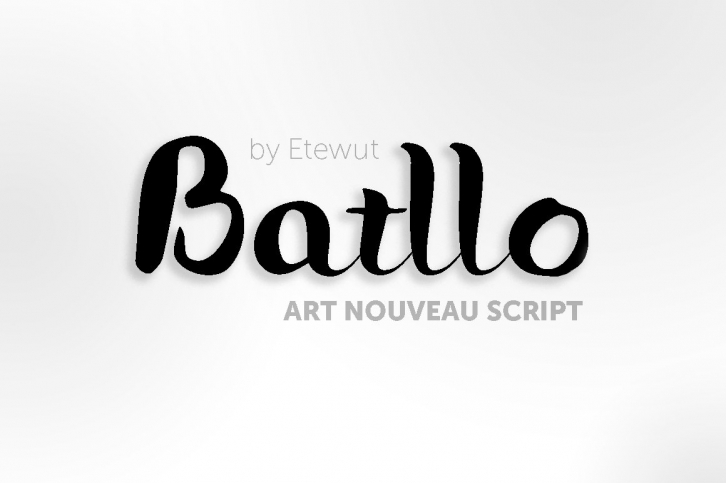
Introducing new script Batllo.
I was inspired by Antonio Gaudi architecture. This amazing font is created after visiting one of his museums Casa Batllo where almost everything from concrete constructions to furniture is designed like animals bones or plants from Catalonia.
I tried to understand his philosophy: there is no wrong shape, but proper place for it. So each glyph is unique, and according it kerned with understanding art nouveau canon.